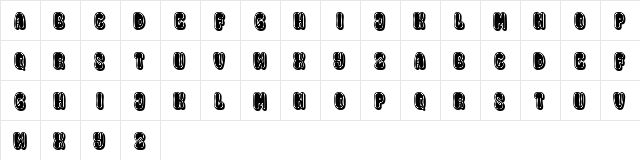
Designero Filled Regular
Design Context for Designero Filled Typeface
Designero Filled is a composed and adaptable typeface that performs quietly and consistently across a wide range of design contexts.